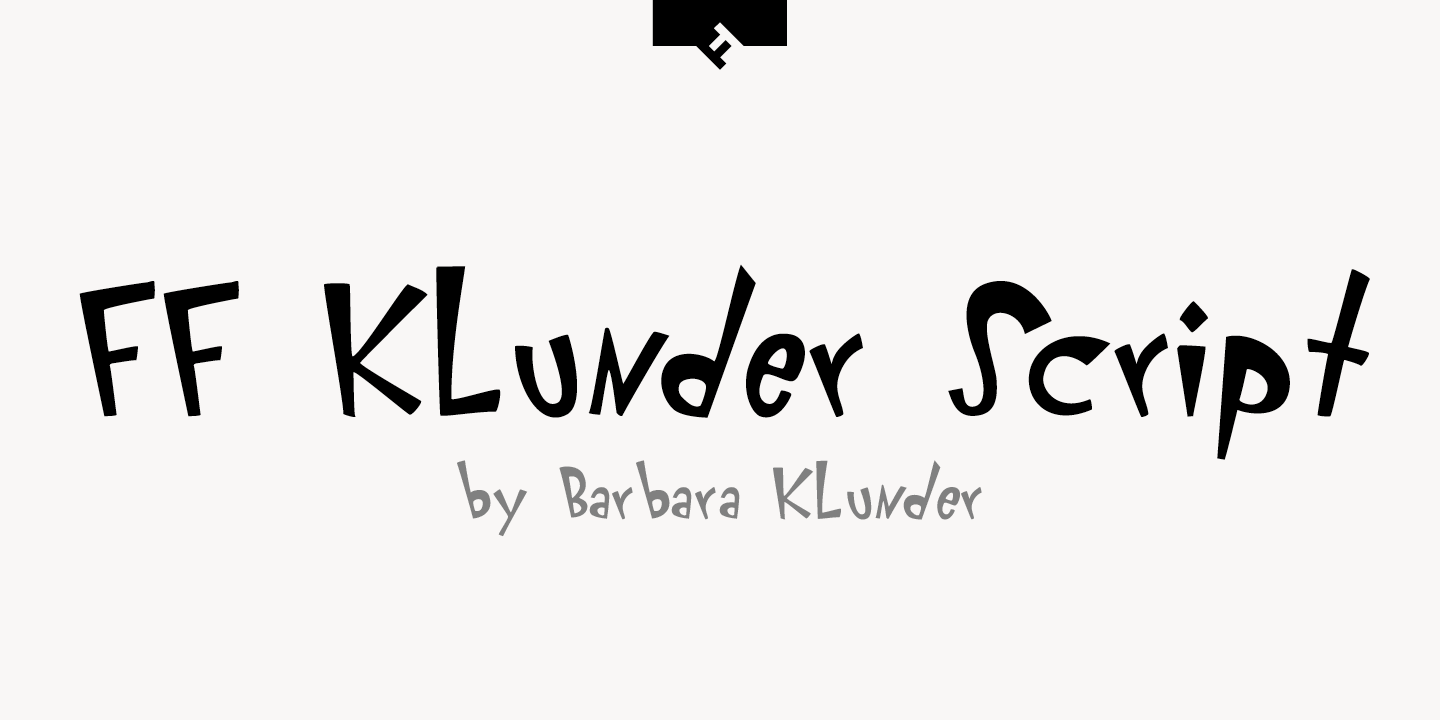
FF Klunder Script Font is perfect for artisanal bakery branding, handcrafted product labels, European café signage, gourmet food packaging, vintage market promotions, craft brewery logos, and authentic handmade business marketing that requires personal, crafted typography.
This font is exciting because it embodies the warmth and authenticity of traditional European craftsmanship, featuring flowing script letterforms that convey personal touch, artisanal quality, and the timeless appeal of handmade excellence while maintaining charming readability.
The FF Klunder Script Font family includes regular and bold weights with flourished variants, offering uppercase and lowercase letters, craft ornaments, handmade symbols, artisanal numerals, and personal punctuation marks designed for authentic craft applications.
Artisanal designers consistently choose FF Klunder Script Font Free Download for projects requiring authentic handcraft character and European artisan appeal. This charming typeface transforms commercial communications into compelling statements of personal craftsmanship that immediately resonate with audiences seeking genuine handmade quality and traditional artisan values. The font's personal character makes it exceptionally effective for small craft businesses, artisanal food producers, and handmade product brands where personal touch and authentic craftsmanship must be communicated through every visual element. Its European heritage bridges traditional craft traditions with contemporary artisan marketing, making it invaluable for brands celebrating handmade excellence and personal attention to detail. The lovingly crafted letterforms maintain their artisanal appeal across product packaging and digital platforms, ensuring consistent brand recognition and craft authenticity. Whether you're developing artisan bakery branding, creating handcraft market materials, or designing authentic craft business identities, this typeface provides the personal voice and visual warmth that distinguishes genuine handmade craftsmanship from mass-produced products, establishing immediate trust among consumers who appreciate authentic artisan quality and value the personal dedication of traditional European craft traditions.